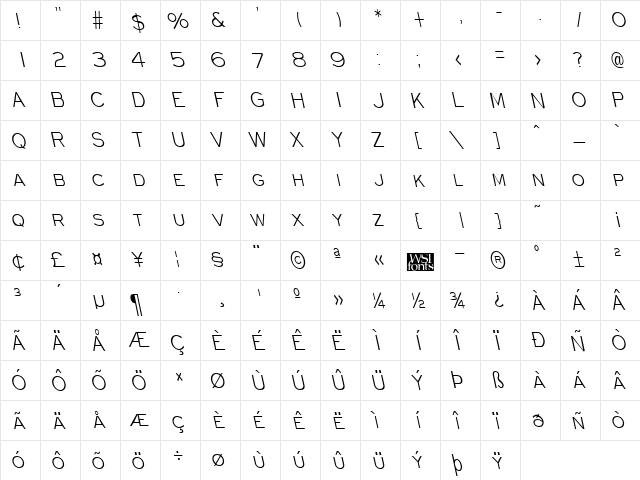
PT Eyechart CondBS Regular
Design Context for PT Eyechart CondBS Typeface
PT Eyechart CondBS offers clean, dependable letterforms without strong stylistic allegiance, making it a practical choice for designers who need flexibility. The condensed width makes it efficient for tight spaces without sacrificing legibility.